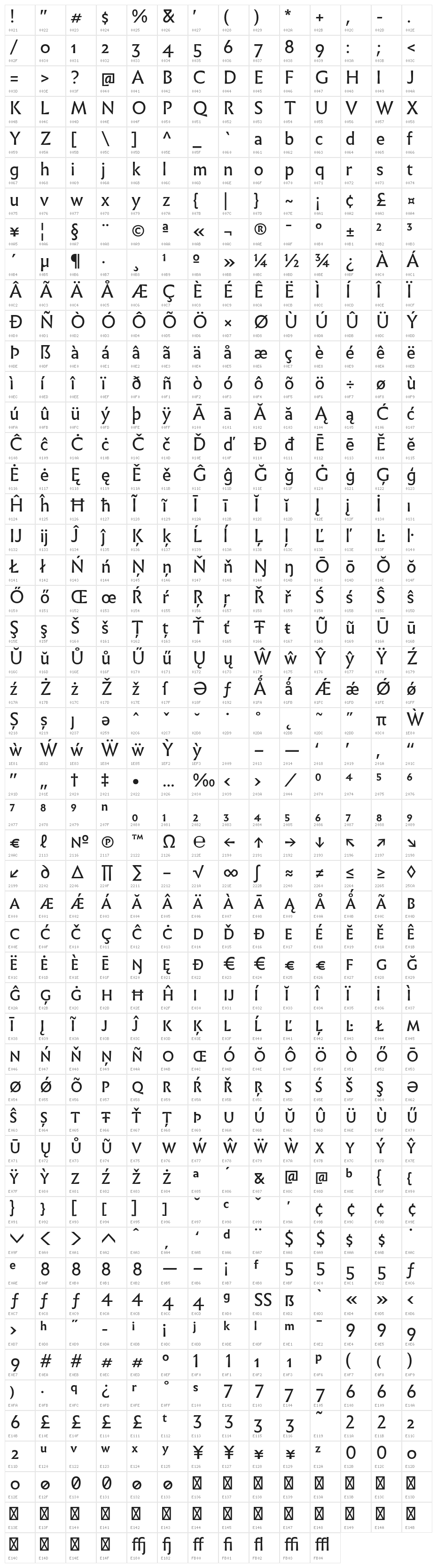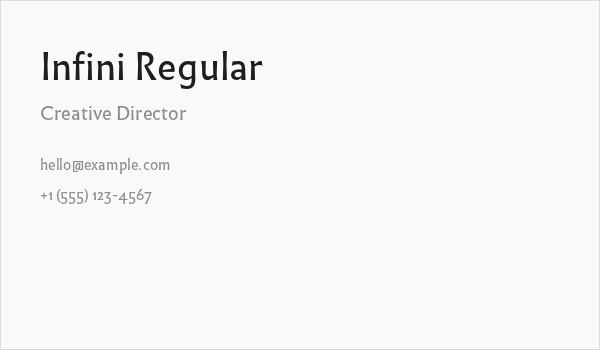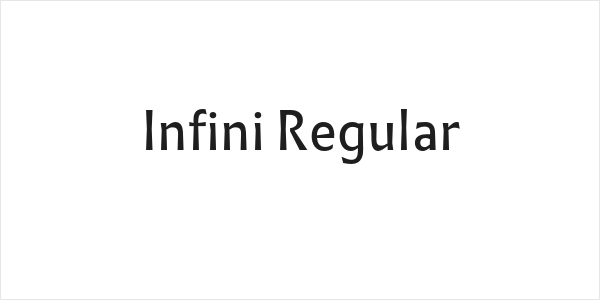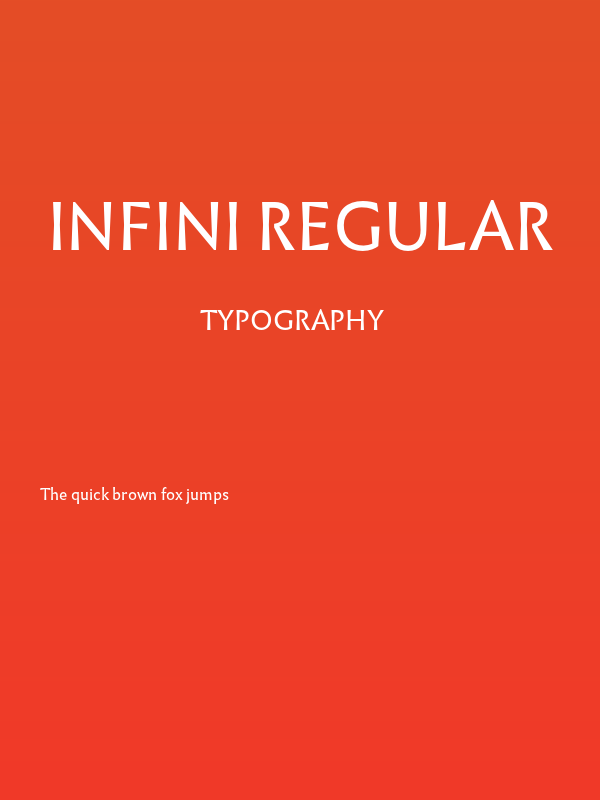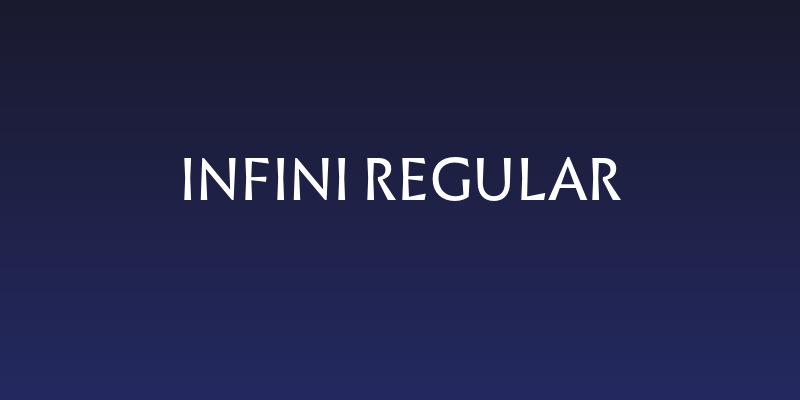
Infini Regular Font
Infini Regular Description
This font features a modern and clean sans-serif style with a slight geometric influence. The characters are well-balanced, offering a harmonious blend of curves and straight lines. Uppercase letters are bold and assertive, while lowercase letters maintain a friendly and approachable appearance. The numerals are distinct and easy to read, making them suitable for various applications. Special characters are well-integrated, ensuring versatility in design projects. The overall aesthetic is contemporary and professional, ideal for both digital and print media.